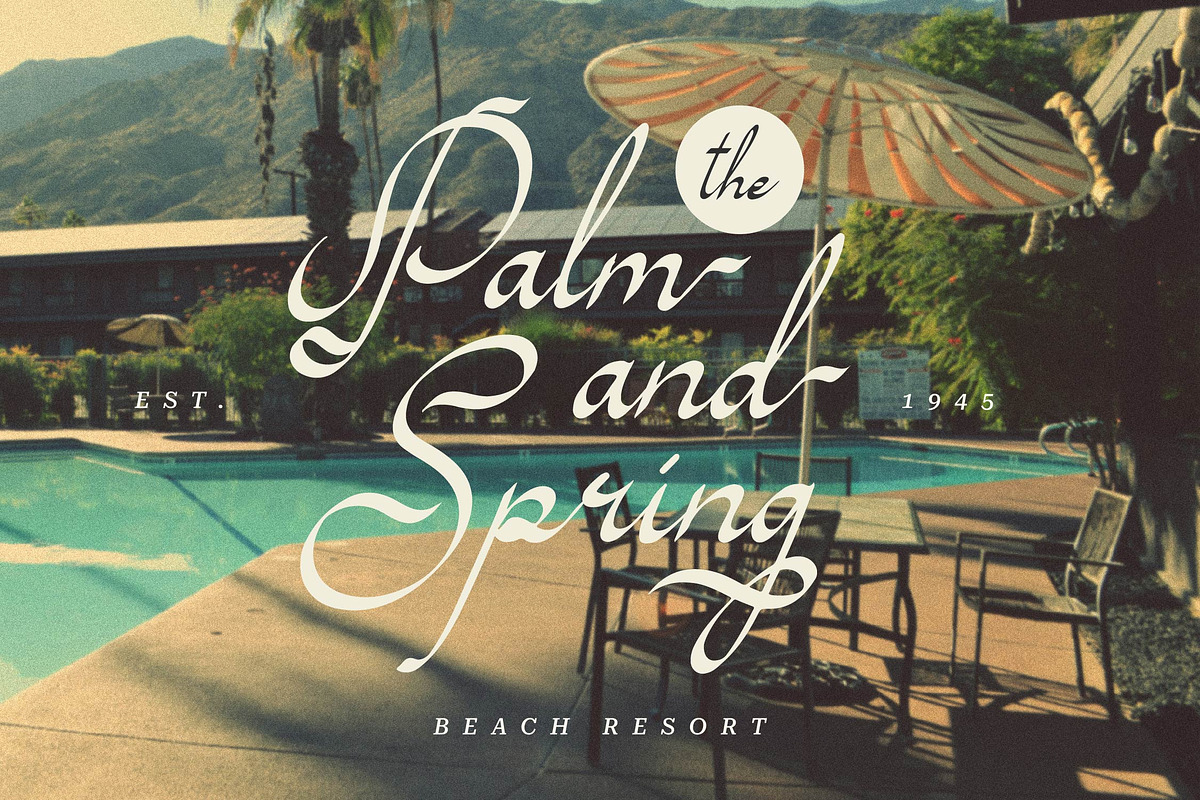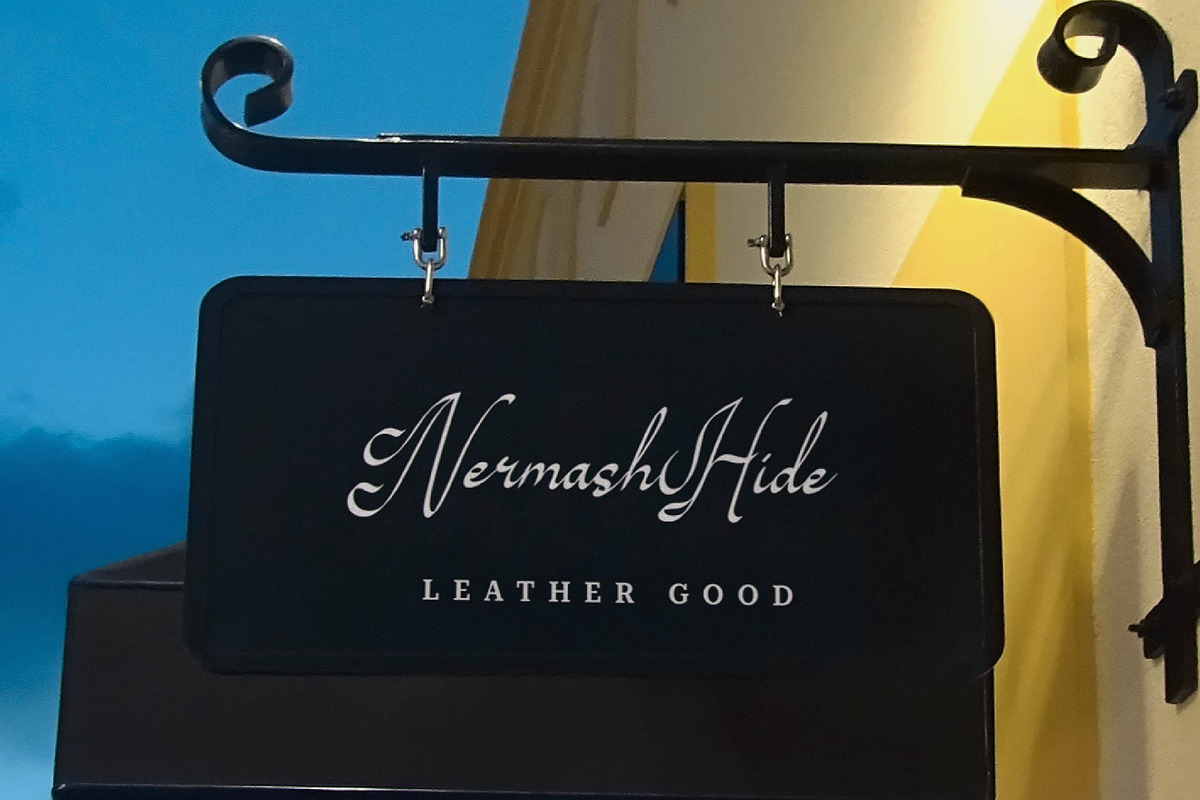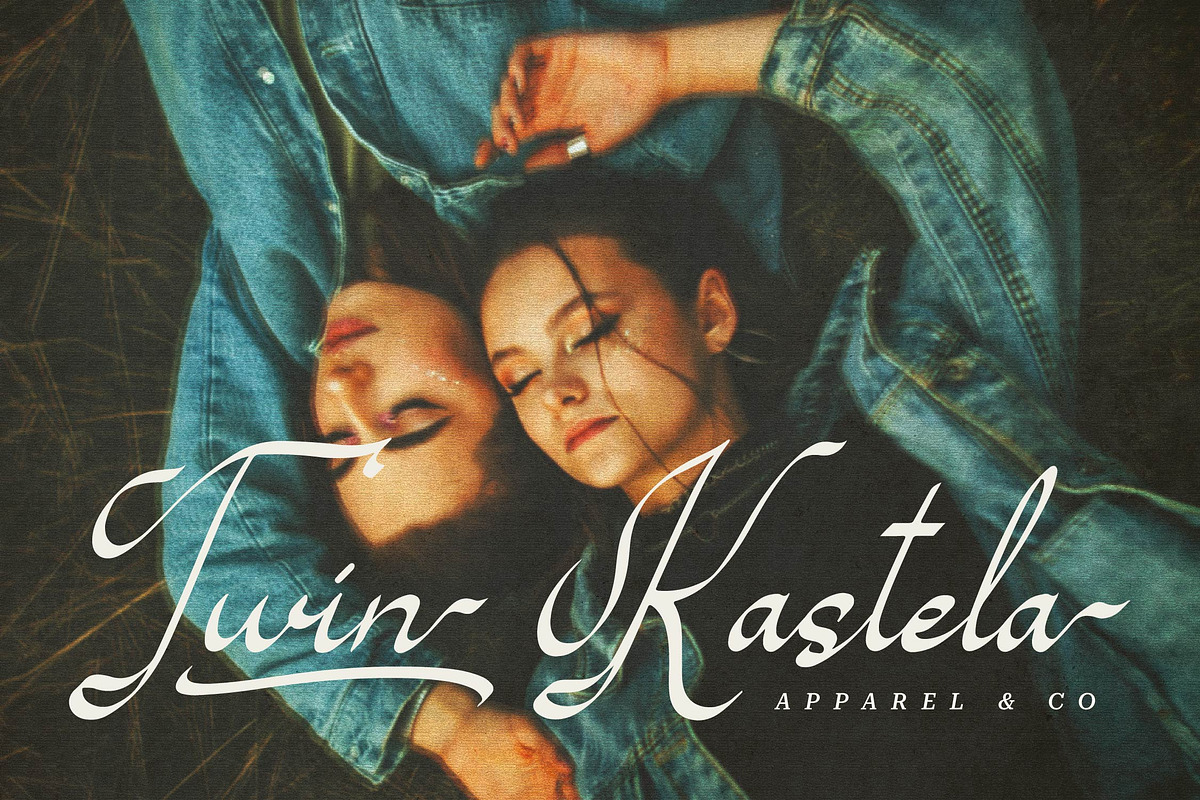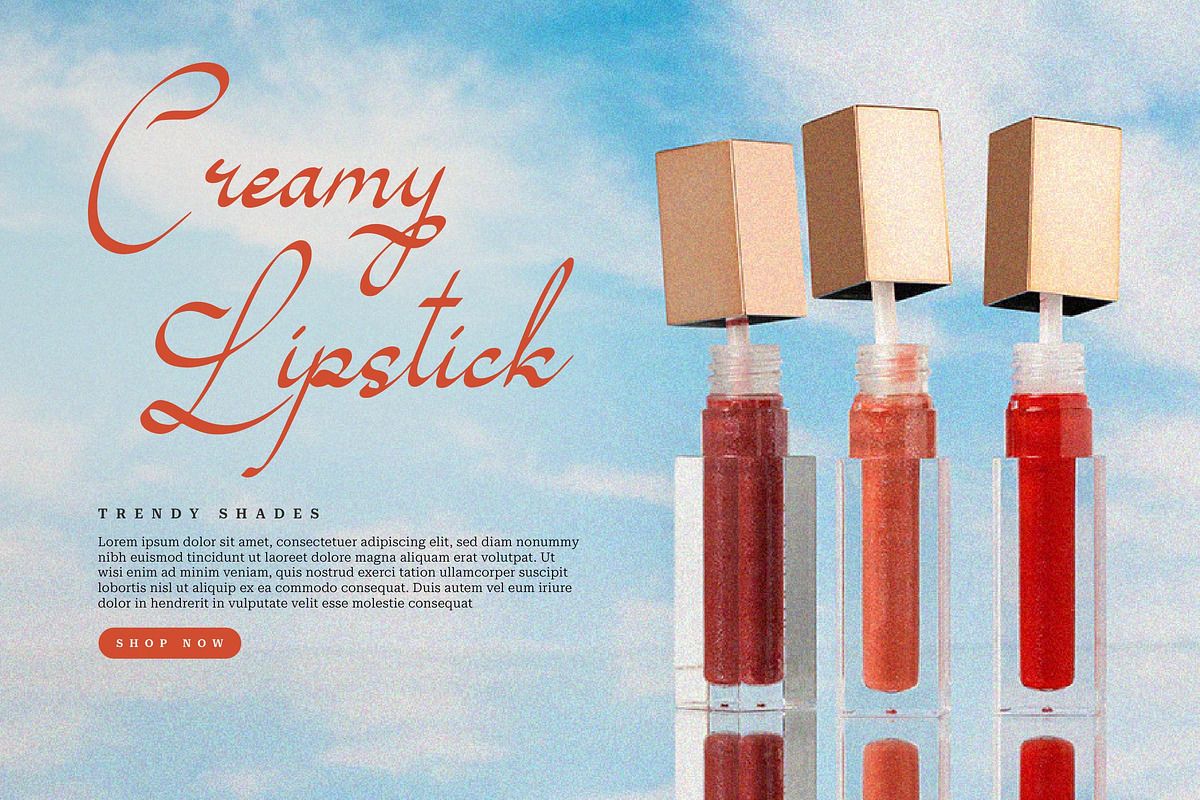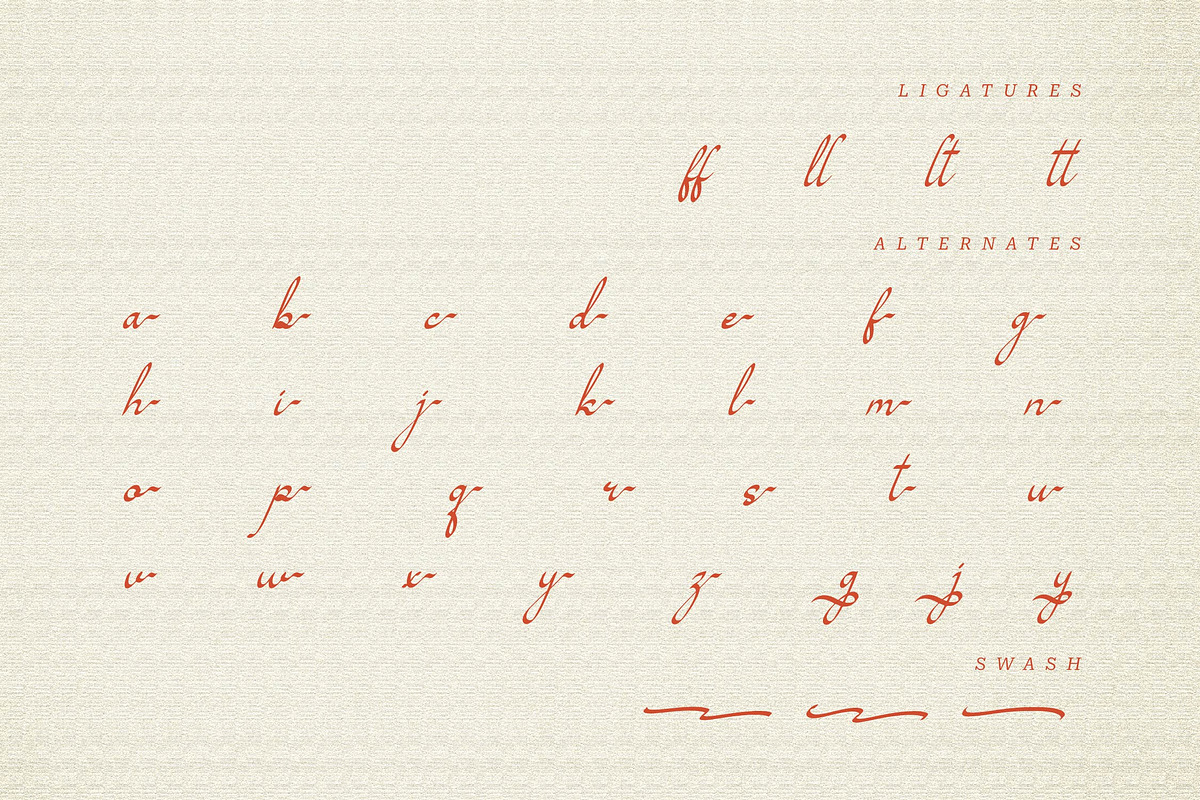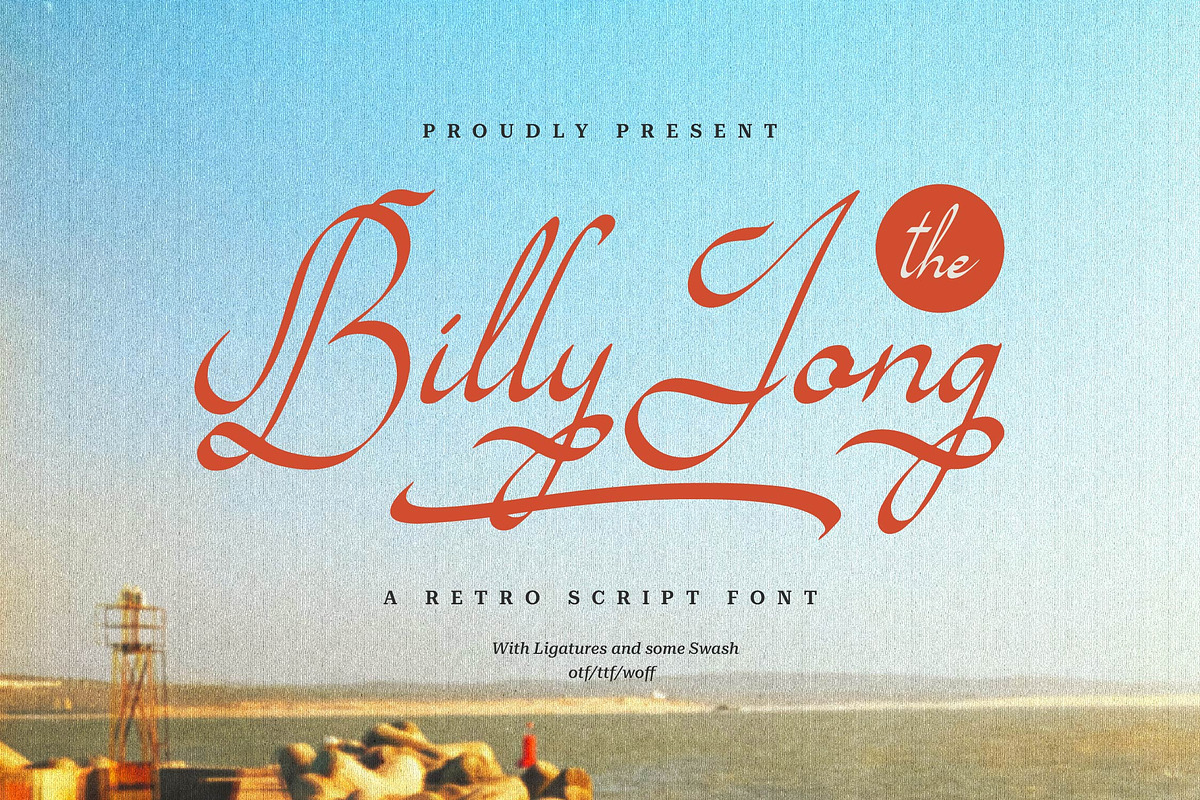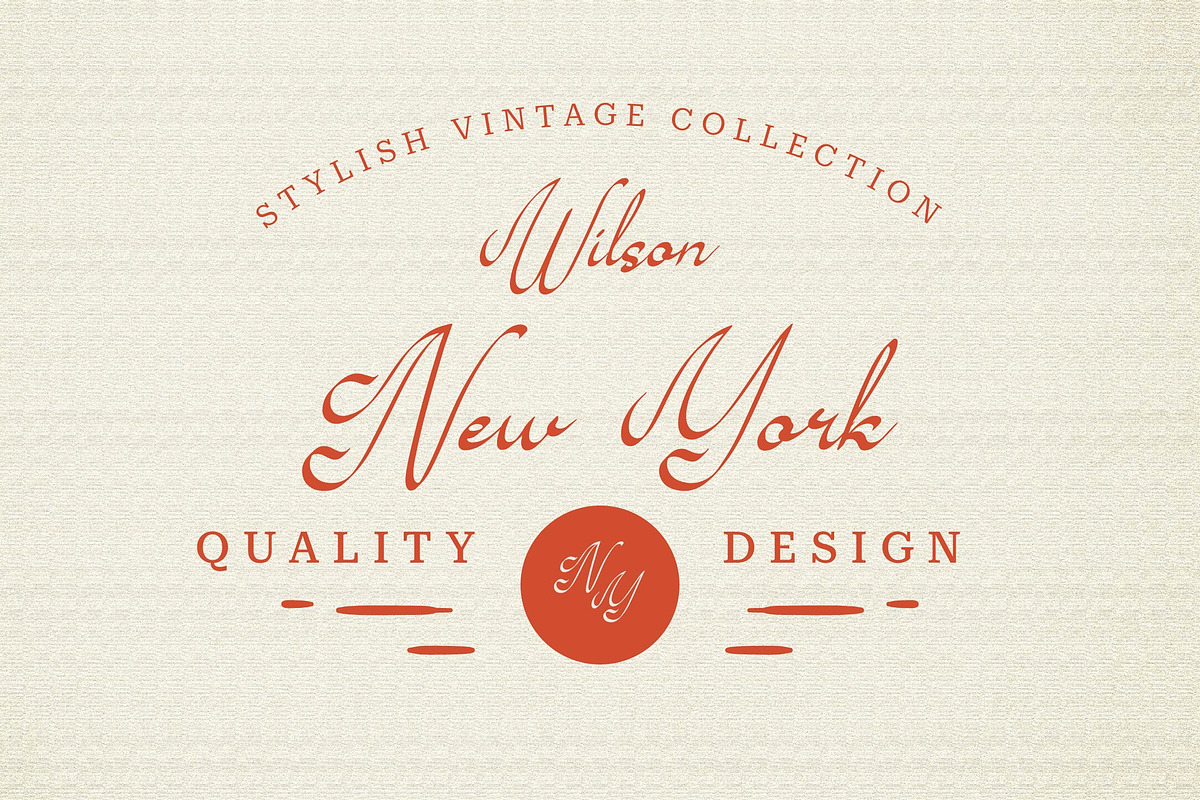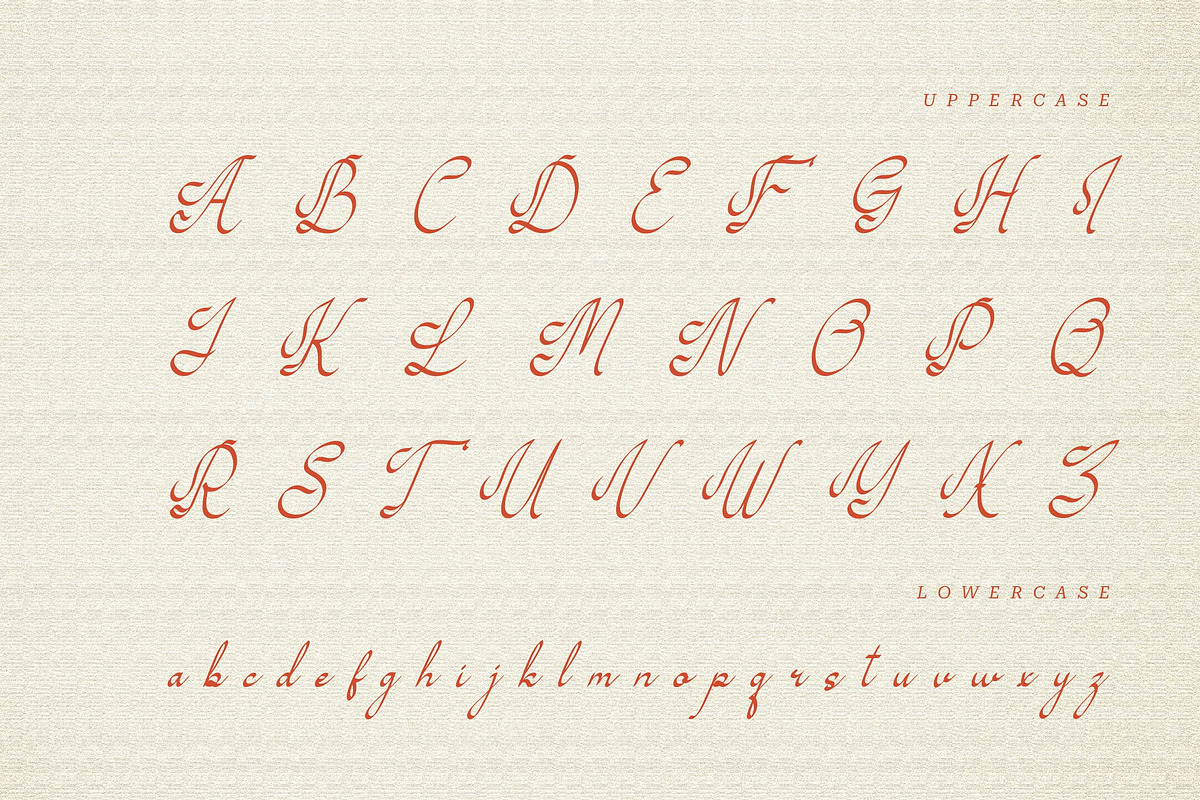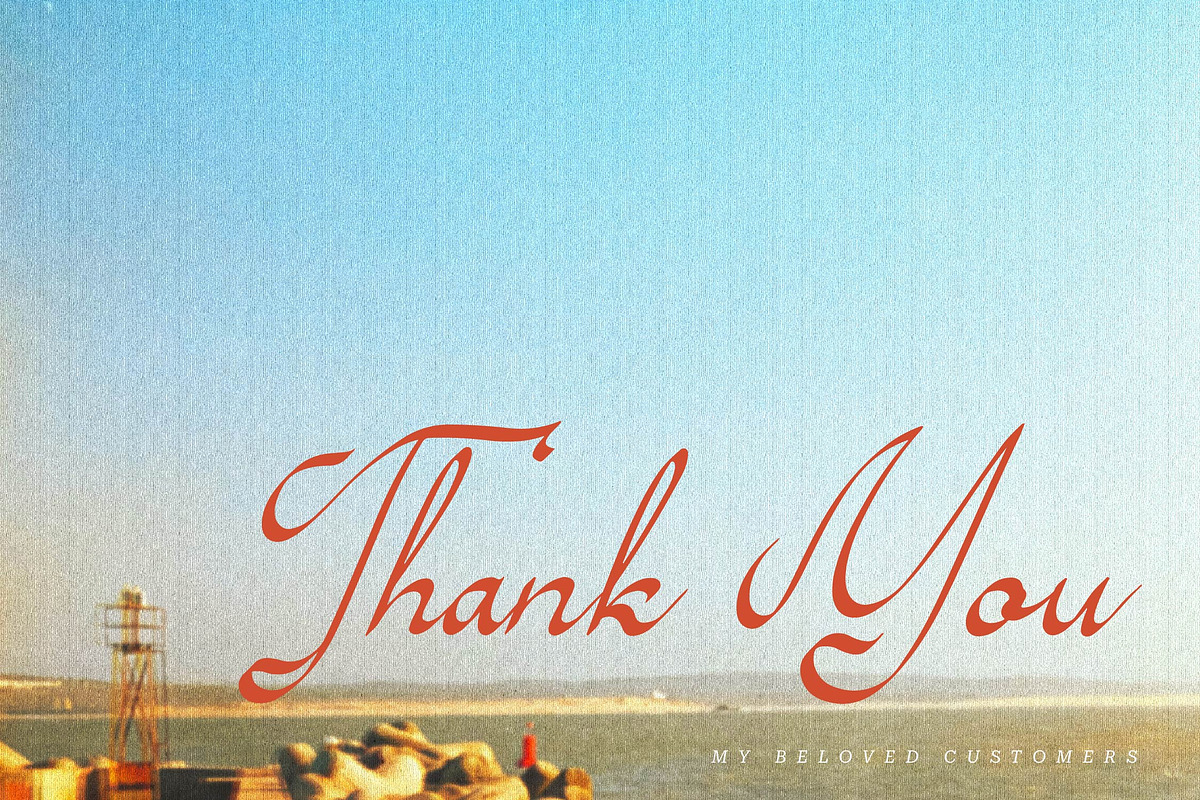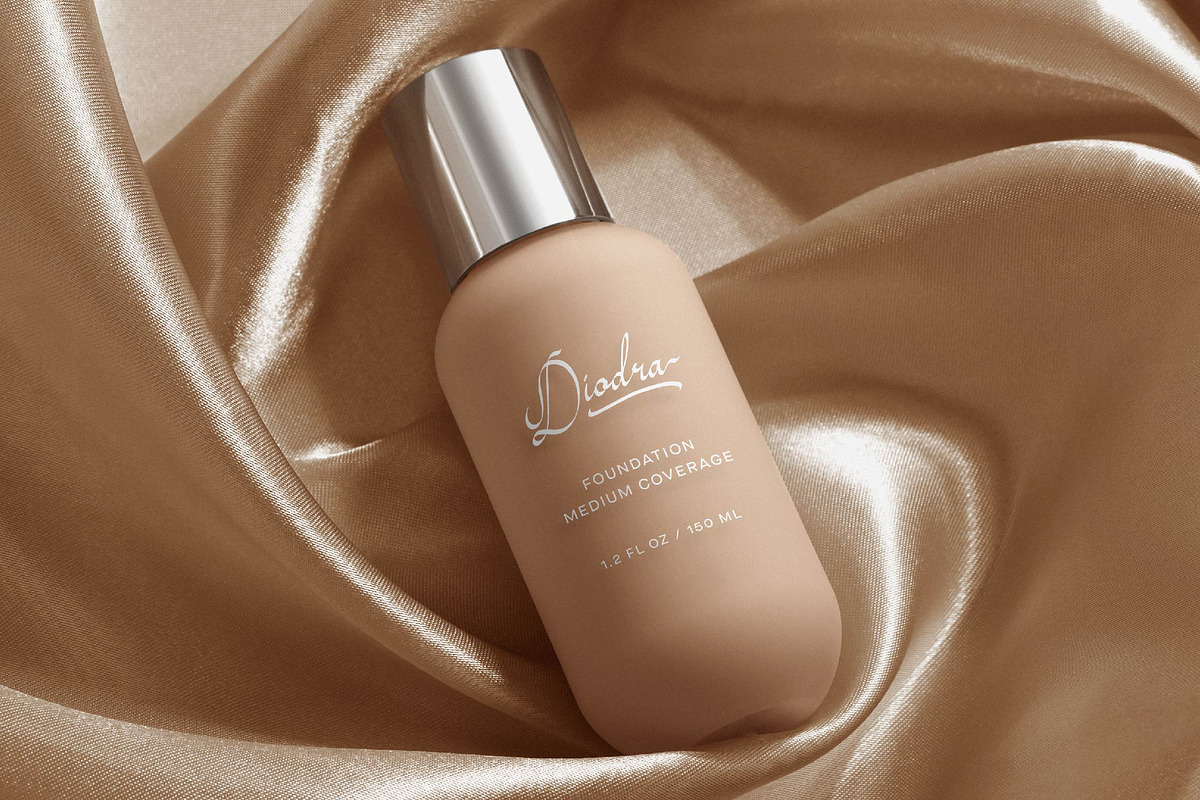
Billy Jong | Retro Script Font
Billy Jong | Retro Script Font, from Gracetypestudio, suitable for any projects such as: logos, branding projects, homeware designs, product packaging, mugs, quotes, posters, shopping bags, t-shirts, book covers, name card, invitation cards, greeting cards, label, photography, watermark, special events, and all your other lovely projects that need a Retro script taste.